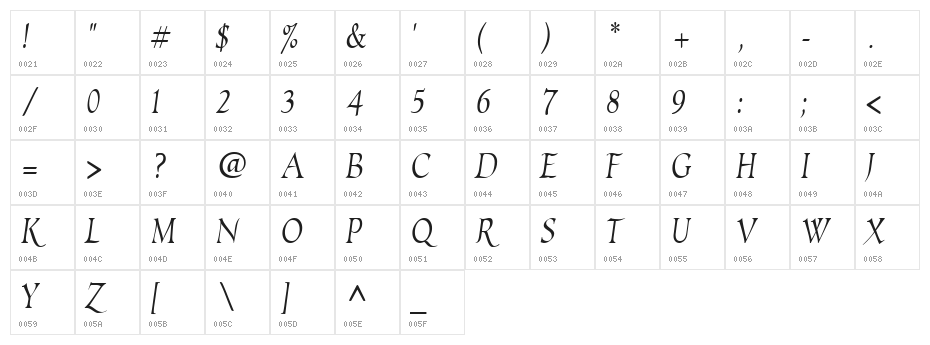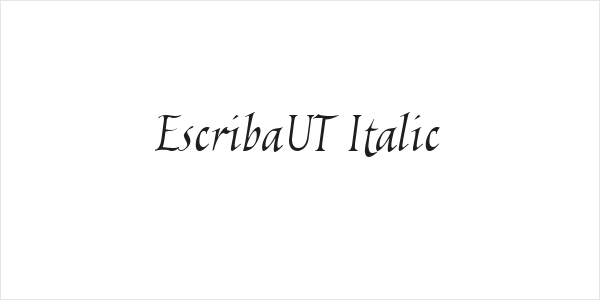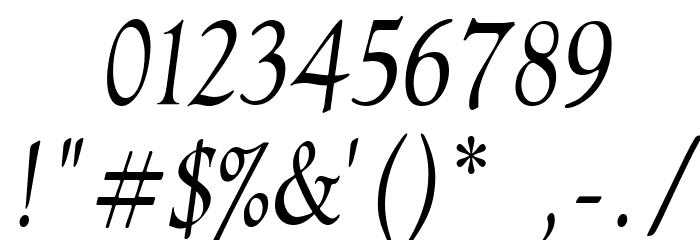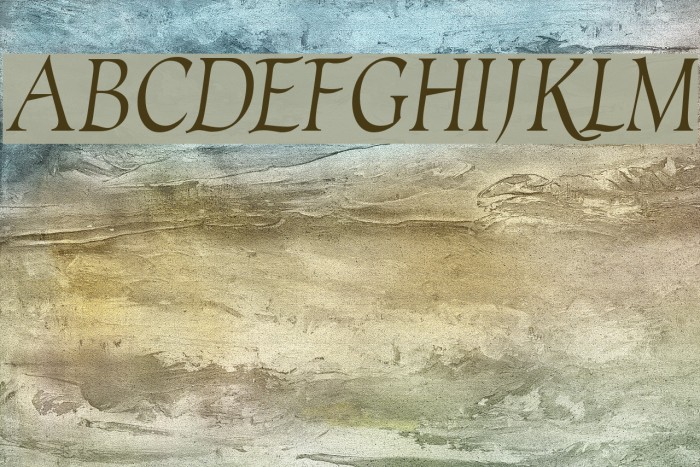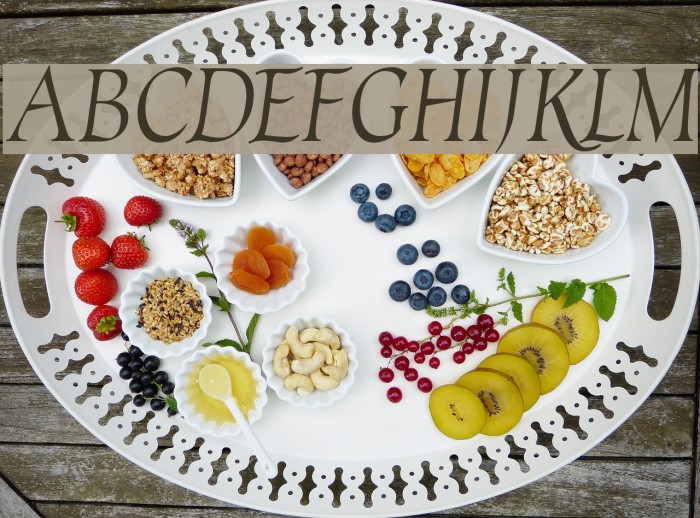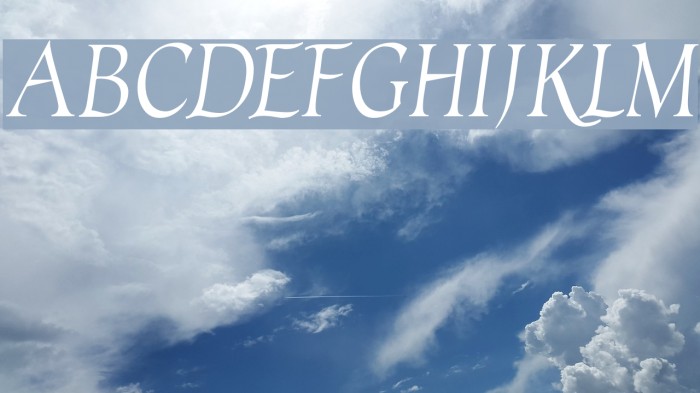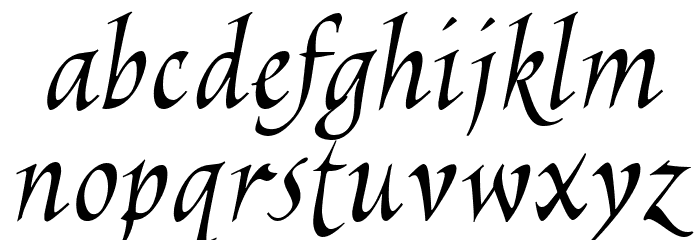
EscribaUT Italic Font
EscribaUT Italic Description
This font features an elegant and flowing italic style, characterized by its smooth, cursive strokes and slight slant to the right. The uppercase letters exhibit a classic and refined appearance, with subtle serifs that add a touch of sophistication. The lowercase letters maintain a consistent slant, enhancing the fluidity and grace of the text. Numbers are clear and legible, with a slight curvature that complements the overall style. Special characters are well-integrated, maintaining the font's cohesive aesthetic. This font is ideal for projects that require a touch of elegance and formality.
| Overall Style | Classic |
| Use Case | Headlines, Logos, Invitations |
| Proposed Projects | Suitable for wedding invitations, formal event programs, elegant branding, and sophisticated editorial design. |